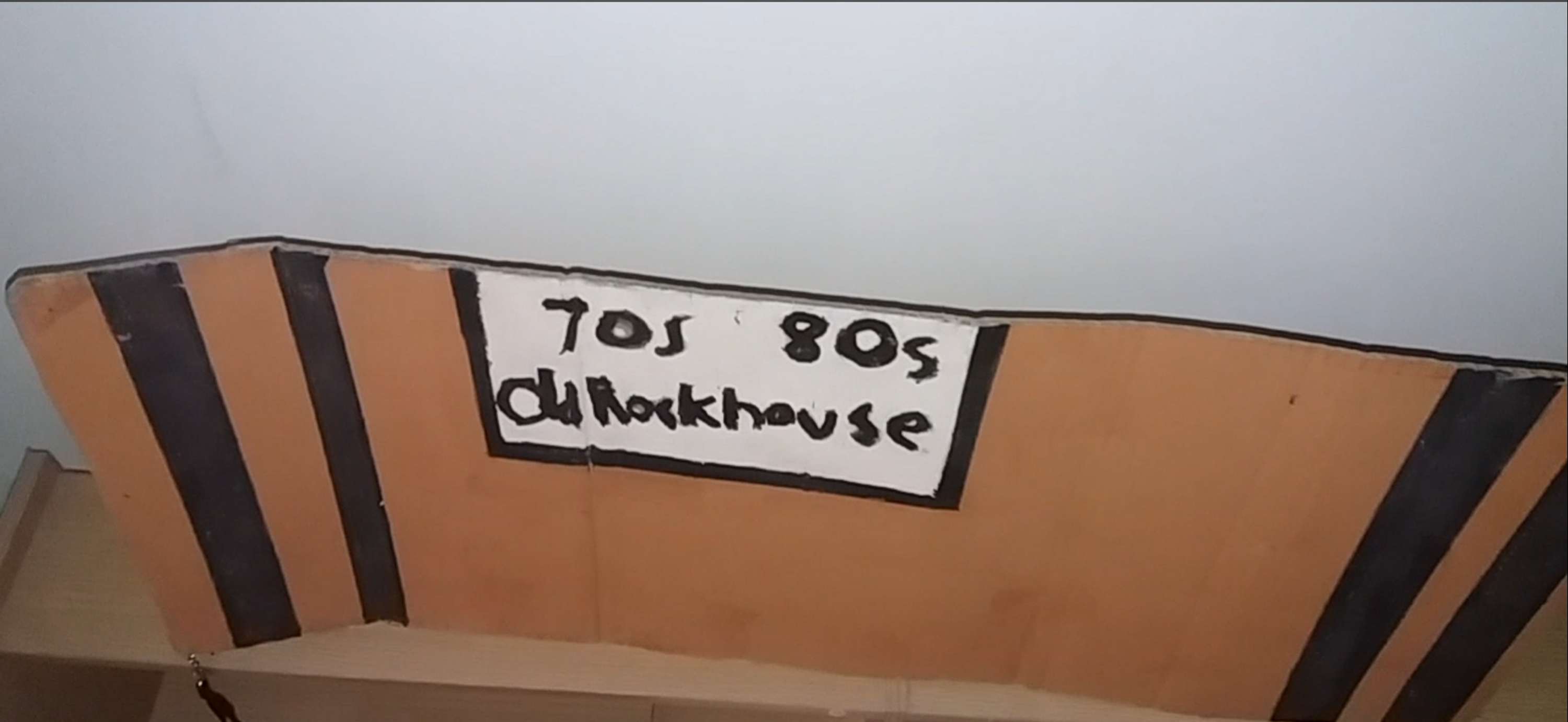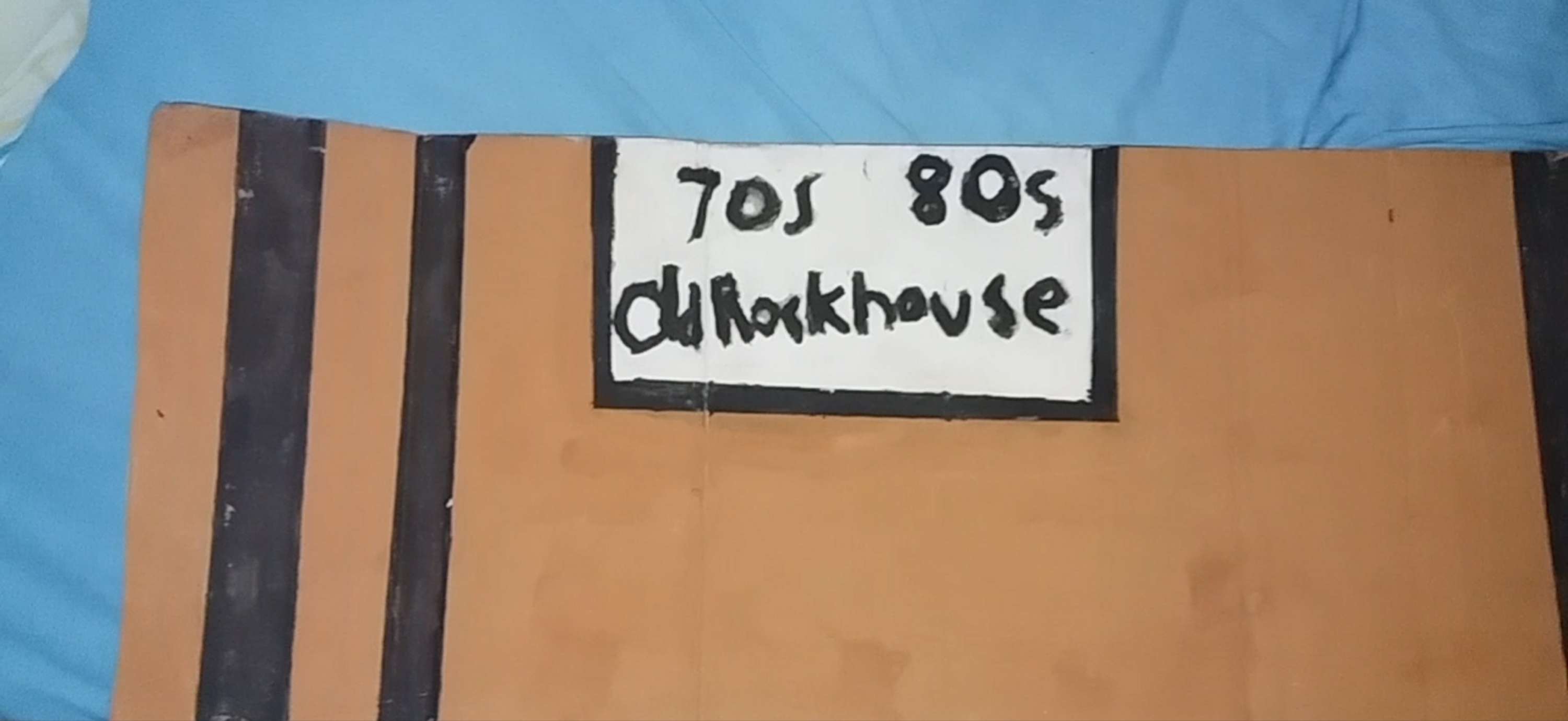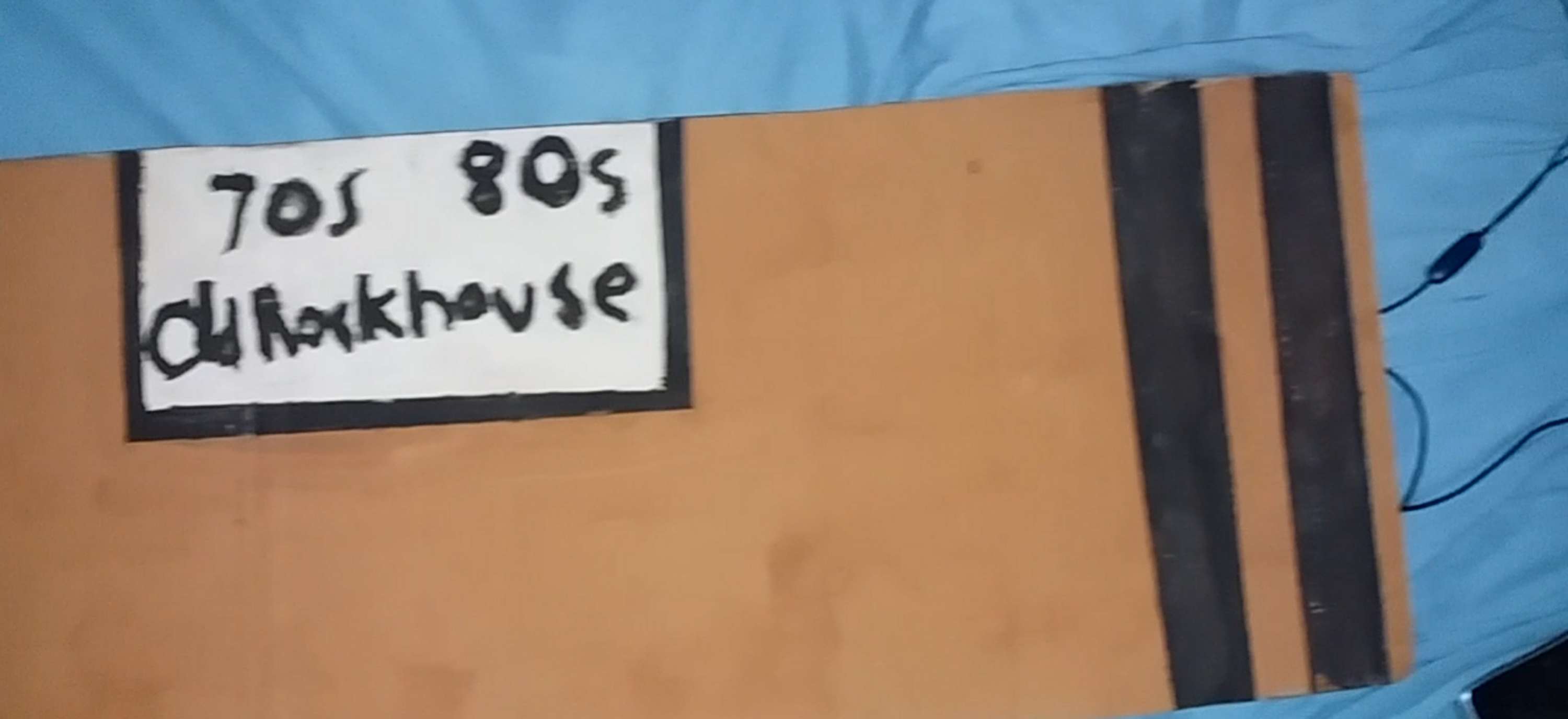
Handmade painted font inside a brown background with black straight lines in the corners
Handmade painted font inside a brown background with black straight lines in the corners made by me Theodoros Mpahoumas #1970s #1980s #70s #80s #oldrockhouse #oldrockhouses #rockandroll #rocknroll #rockhead #metal #metalhead #rockmusic #metalmusic
Handmade painted font inside a brown background with black straight lines in the corners by Theodoros Mpahoumas Graffiti